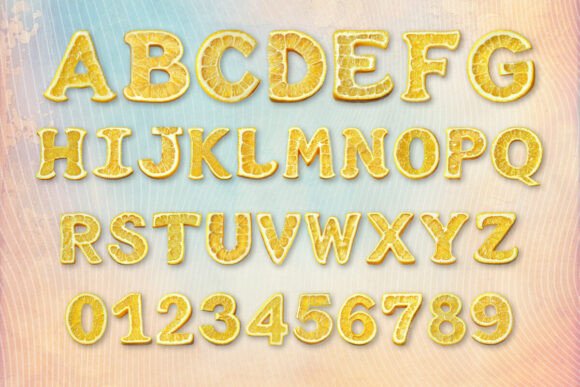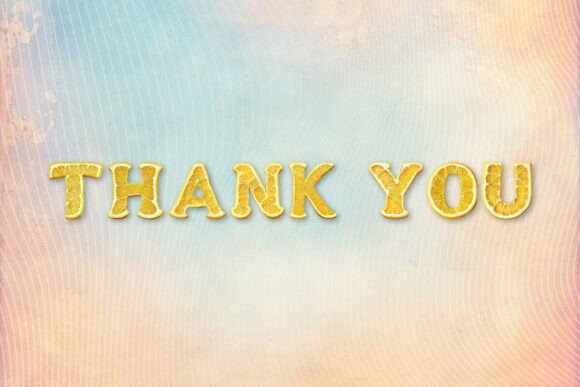
Introduction to Lemon Fruit Font
Have you ever been working on a creative project and suddenly felt like something was missing – a burst of energy, a splash of color, a dash of whimsy? That’s where the Lemon Fruit Font comes in – a vibrant, summer-inspired typeface that’s sure to elevate your designs and leave a lasting impression.
As a designer, you’re always on the lookout for unique and high-quality design resources to help bring your ideas to life. That’s why we’re excited to introduce the Lemon Fruit Alphabet Font – a free download that’s perfect for adding a healthy dose of freshness and appeal to your creative projects. With its transparent background and versatile style, this font is sure to be a valuable addition to your design toolkit.
Whether you’re working on a summer-themed project or just want to inject some sunshine into your designs, the Lemon Fruit Font is the perfect solution. Its playful, exotic appeal is sure to captivate your audience and leave them feeling refreshed and delighted.
Key Features of Lemon Fruit Font
- High-quality, hand-drawn design with a transparent background, ideal for creative projects and design resources.
- Unique, citrus-inspired design elements make it perfect for branding, packaging, and other creative projects.
Honest Review: Lemon Fruit Font
I recently had the chance to work with the Lemon Fruit Font, and I must say it’s a pretty interesting addition to my design resource library. The font has a unique, playful vibe that’s perfect for a creative project like a children’s book or a food-related website.
One of the things that stands out about this font is its high quality. The design is clean and crisp, with a clear, easy-to-read texture that’s great for both digital and print applications.
What works well: ✨ High-quality design, ✨ transparent background, ✨ perfect for creative projects, ✨ free download, ✨ great for food-related or children’s content
However, I do have to mention a few limitations: ⚠️ limited character set, ⚠️ not suitable for formal or professional projects, ⚠️ may not work well with certain color schemes or backgrounds
Overall, I’d say the Lemon Fruit Font is a great addition to any design library, especially for those working on creative projects or food-related content. While it may have some limitations, its unique design and high quality make it a great choice for designers looking for a fun and playful font.